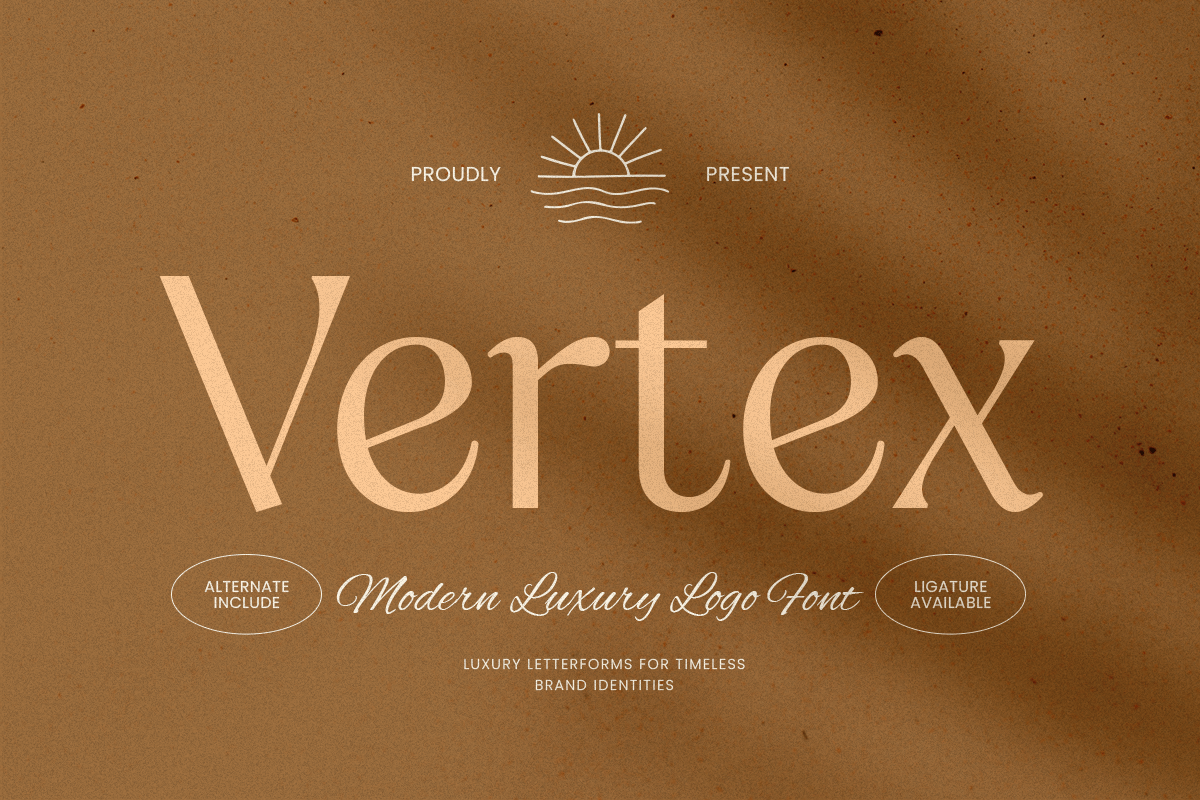
Vertex
-Modern Classy Logo FontVertex - Modern Classy Logo Font
Vertex is a modern luxury logo font designed to deliver refined sophistication with a clean contemporary edge. Built with polished letterforms and balanced proportions, this typeface creates a premium visual tone that feels confident, timeless, and instantly brand-ready.
Designed for logo-centric typography, Vertex performs beautifully across wordmarks, brand identity systems, luxury packaging, labels, website headers, editorials, invitations, signage, presentations, and upscale marketing visuals. Its modern structure keeps typography crisp and readable, while the luxury character adds prestige and exclusivity across both digital and print layouts.
Whether you’re crafting a fashion label, building a beauty brand, designing premium packaging, or creating an upscale corporate identity, Vertex provides a modern luxury foundation that makes your typography feel elegant, professional, and unforgettable.
Inspiration Behind Vertex
Vertex is inspired by contemporary luxury branding and modern editorial aesthetics—where clean structure, refined rhythm, and elegant simplicity define premium identity. The design focuses on sleek form and high-end presence to support upscale logos and premium communication with timeless style.
Vertex Font Features:
Modern luxury letterforms optimized for logo and wordmark design
Clean, refined structure for premium branding consistency
Elegant visual rhythm for headlines and brand statements
Luxury logos, wordmarks, and premium brand identity systems
Fashion, beauty, skincare, fragrance, jewelry, and boutique branding
Editorial layouts, magazine headlines, and premium presentations
Luxury packaging, labels, invitations, and upscale stationery
Social media campaigns, websites, ads, and high-end marketing assets